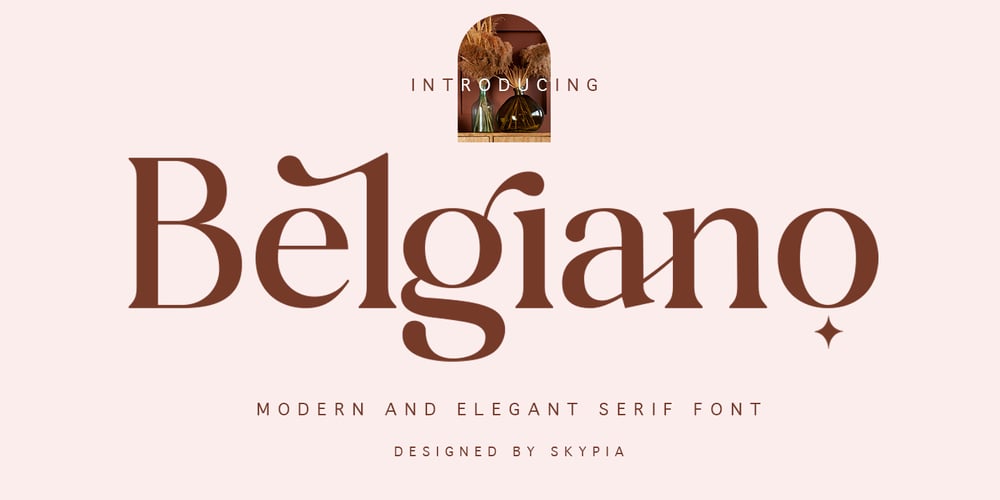
Belgiano Serif
Belgiano Serif font
Belgiano Serif Font Family was designed by Fajarisha Phonna and published by Skypia. Belgiano Serif contains 1 styles and family package options. introducing our new “Belgiano” Modern Ligature with Elegant Style this is perfect for branding, logos, invitation, masterheads and more.Belgiano is also included full set of: uppercase and lowercase letters multilingual symbols numerals punctuation Alternates PUA Encoded Ligatures Wish you enjoy our font and if you have a question, don’t hesitate to drop message & I’m happy to help :)Thank you,Skypia